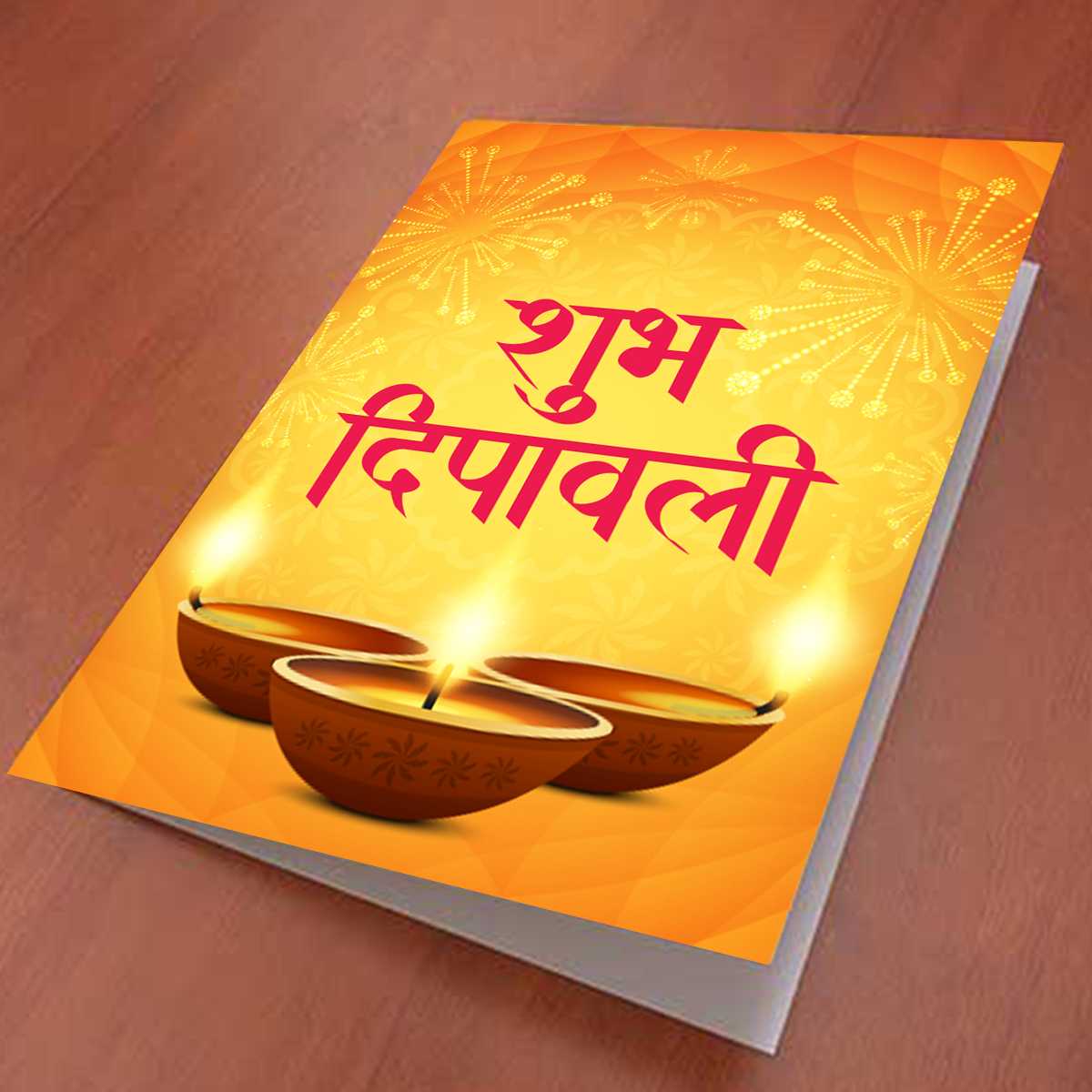
AMS Calligraphy 1
AMS Calligraphy 1 is a font that embodies the artistry and sophistication of calligraphy. With its graceful strokes and exquisite letterforms, this font brings timeless elegance to your designs.
About AMS Calligraphy 1 Font
AMS Calligraphy 1 is a font that embodies the artistry and sophistication of calligraphy. With its graceful strokes and exquisite letterforms, this font brings timeless elegance to your designs. This calligraphy font combines elegance with functionality, making it perfect for various design applications.
AMS Calligraphy 1 is a professionally crafted calligraphy typeface that brings clarity and style to your projects. Designed with attention to detail, it supports hindi and marathi characters flawlessly.
Whether you're working on invitations, headers-titles, websites-digital-media, or other creative projects, AMS Calligraphy 1 delivers consistent performance across both digital and print media. This carefully designed typeface ensures readability and visual appeal in all your design work.
About AMS Calligraphy 1 Typography Style
AMS Calligraphy 1 is a professionally crafted calligraphy font that exemplifies modern Hindi typography design. This free font is perfect for designers seeking versatile design applications.
Available in 1 weight and supporting hindi, marathi scripts, AMS Calligraphy 1 offers exceptional versatility for both digital and print media. Whether you're working on invitations, headers-titles, websites-digital-media, this carefully designed typeface ensures consistent quality and professional results across all your typography projects.